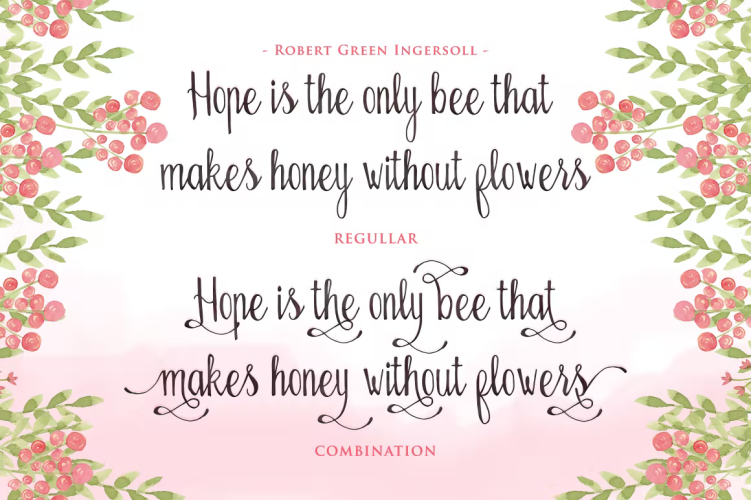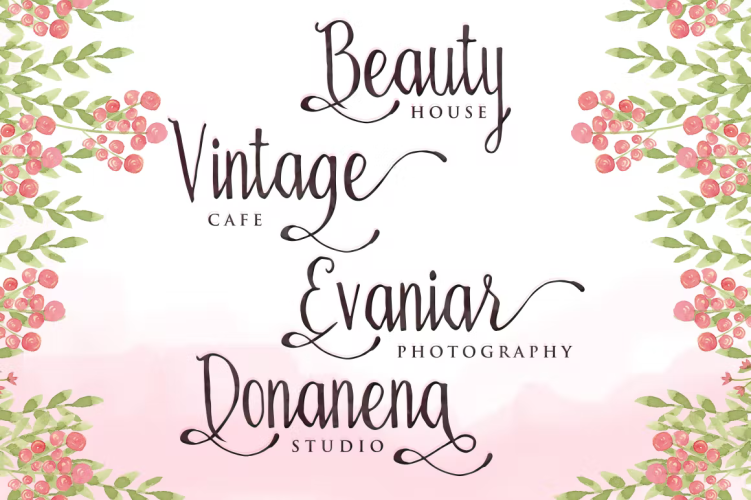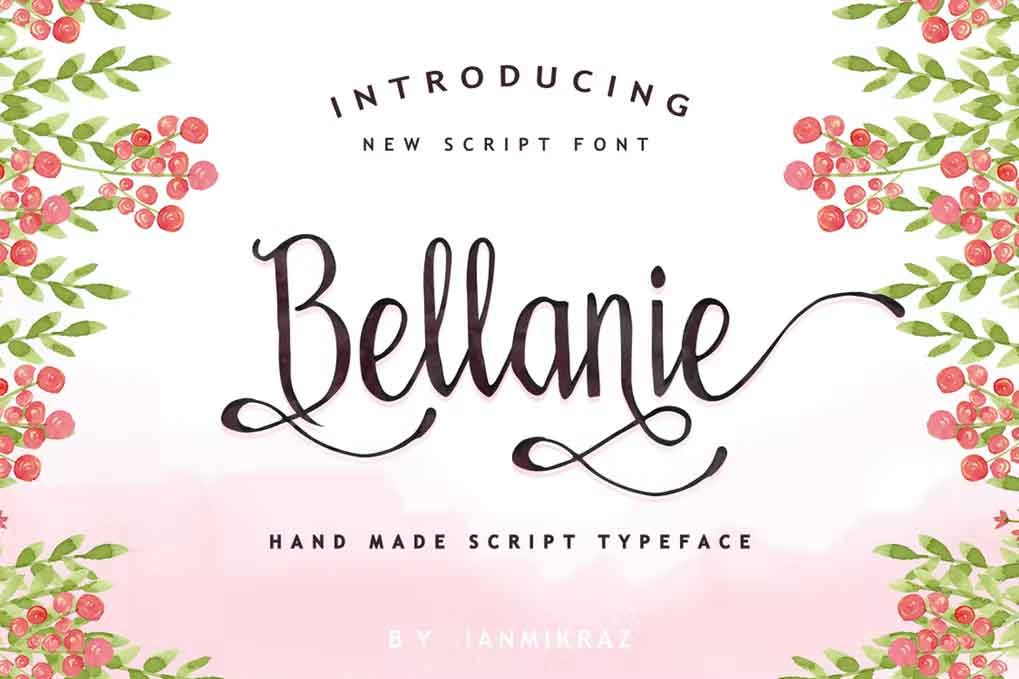
Bellanie Script Font
Introducing Bellanie Script
Bellanie Script is a handmade script typeface. Bellanie Script is suitable for wedding invitation, any greeting cards, retro / vintage design style, or any design that needs natural and personal touch. Mix and match the alternate characters to add an attractive message to your design.
Where Bellanie Script Font works best
Bellanie Script Font brings a personal, handwritten warmth to invitations, menus and place cards.
Craft brands — coffee, cosmetics, bakery — use scripts like Bellanie Script Font for signature-style logos and labels.
Pair Bellanie Script Font with a plain sans for quotes, stories and Pinterest pins that feel handmade.
What is Bellanie Script Font good for?
Bellanie Script Font is a Script And Handwritten typeface tagged Handwritten, Retro, Script, Script And Handwritten. It works well for headlines, logos, posters, social media graphics and branding projects that need a distinctive script and handwritten look.